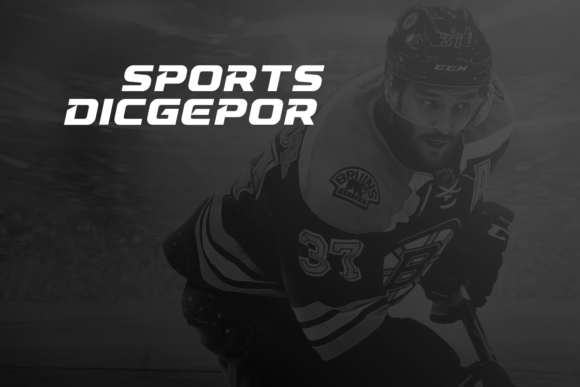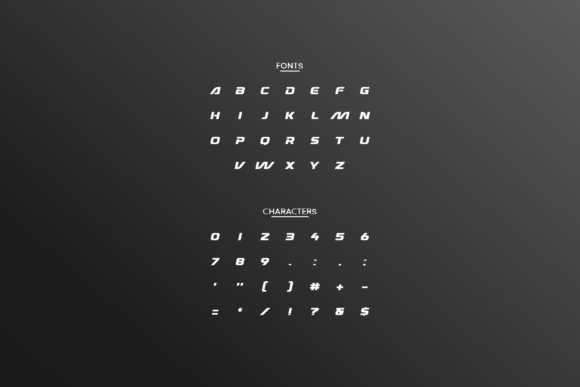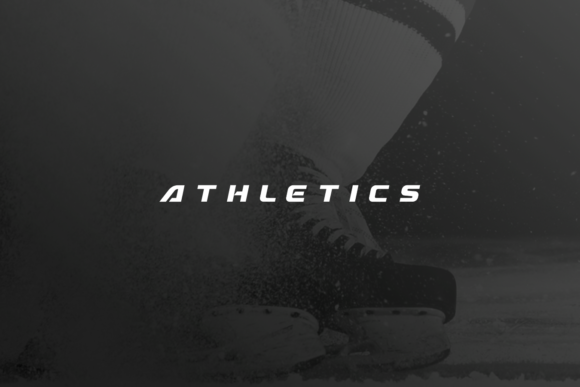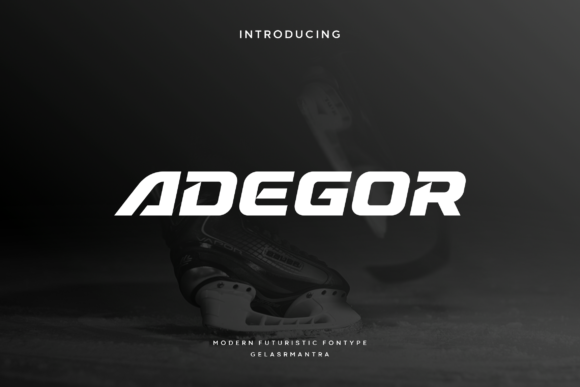
Adegor Font: Unleash the Power of Speed and Dynamism in Your Designs
In the realm of typography, fonts play a pivotal role in conveying the intended message and evoking emotions. For designers and crafters looking for a font that embodies speed, dynamism, and modernity, Adegor Font stands out as an exceptional choice. Specifically designed for sports titles, automotive game logos, and other applications requiring a sense of velocity and power, Adegor is an awesome sports font that brings a fresh perspective to the table.
Characteristics of Adegor Font
Adegor Font is distinguished by its modern cutouts and dynamic slant, which contribute to its unique appeal. This font is not just about aesthetics; it’s also highly functional, offering excellent legibility and size options that make it versatile for various design projects. Whether you’re working on fast car racing sports titles, running matches, cycling events, or automotive game logos and monograms, Adegor compares favorably with other fonts in terms of readability and impact.
Ideal for Sports and Automotive Themes
The design of Adegor Font is centered around creating a sense of speed and power. Its sleek lines and modern appearance make it an ideal choice for projects that require a dynamic look. For instance, in car racing sports titles, the font’s cutouts and slant can effectively convey the adrenaline rush and excitement associated with high-speed racing. Similarly, for cycling and running events, Adegor’s legibility ensures that information is easily readable, even from a distance.
Dynamic yet Readable
One of the key challenges in selecting a font for dynamic and fast-paced themes is ensuring that it remains readable without losing its impact. Adegor Font strikes a perfect balance between dynamism and readability. Its design ensures that the text is clear and legible, making it suitable for a wide range of applications, from game logos and monograms to event titles and promotional materials.
Designed for Versatility
Adegor Font is not limited to sports and automotive themes. Its modern design and dynamic slant make it a versatile choice for any project that requires a sense of movement and energy. Whether you’re a designer looking for a font to enhance your project’s visual appeal or a crafter seeking a unique typographic style, Adegor offers a fresh and exciting option.
Why Choose Adegor Font?
There are several reasons why Adegor Font should be your go-to choice for dynamic and modern designs:
• Unique Design: Adegor’s modern cutouts and dynamic slant set it apart from other fonts.
• High Legibility: The font is designed to be easily readable, making it suitable for various applications.
• Versatility: Adegor can be used in sports titles, automotive logos, and any project requiring a dynamic look.
• Impactful: The font effectively conveys a sense of speed and power, perfect for projects that need to evoke energy and movement.
Adegor Font is an exceptional choice for designers and crafters looking to infuse their projects with a sense of speed, dynamism, and modernity. Its unique design, combined with high legibility and versatility, makes it an ideal font for a wide range of applications. Whether you’re working on sports titles, automotive game logos, or any project that requires a dynamic and impactful typographic style, Adegor is definitely worth checking out. With its ability to convey power and speed while maintaining readability, Adegor Font is poised to become a favorite among designers seeking to create compelling and engaging visual content.